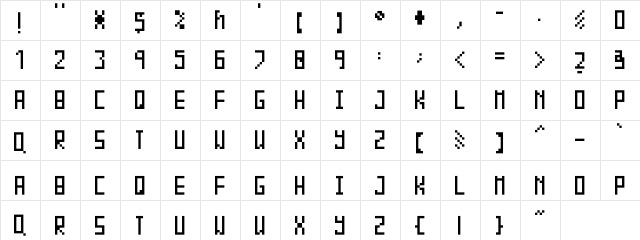
Piksalet Regular
Design Context for Piksalet Typeface
Piksalet is a composed and adaptable typeface that performs quietly and consistently across a wide range of design contexts.